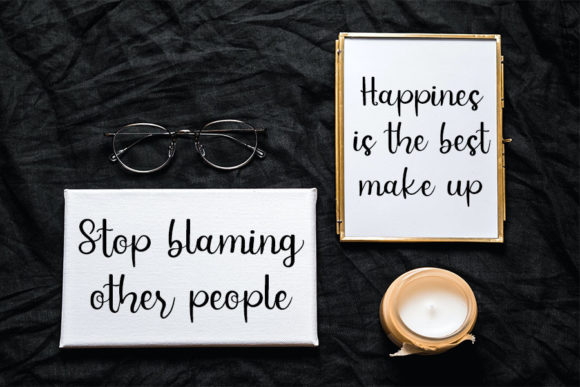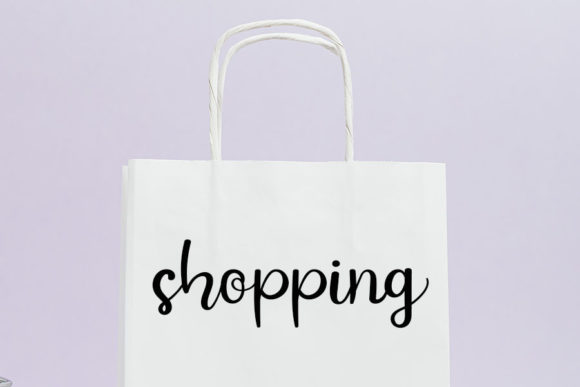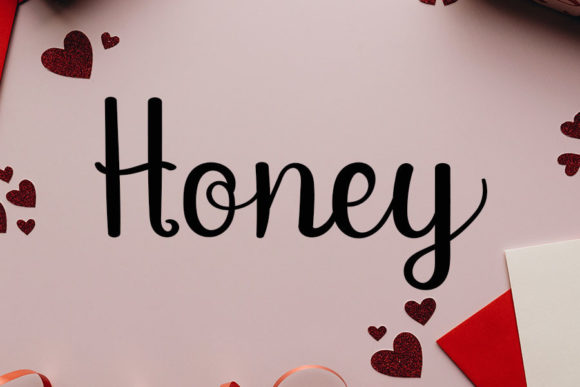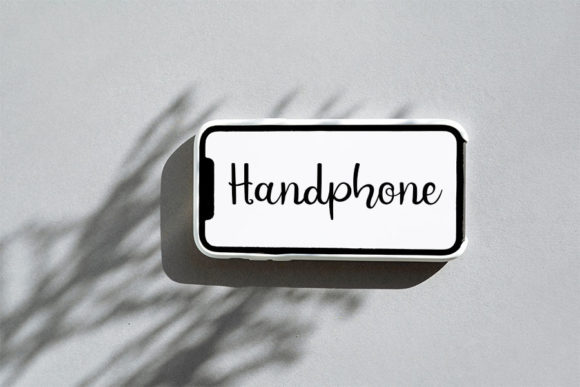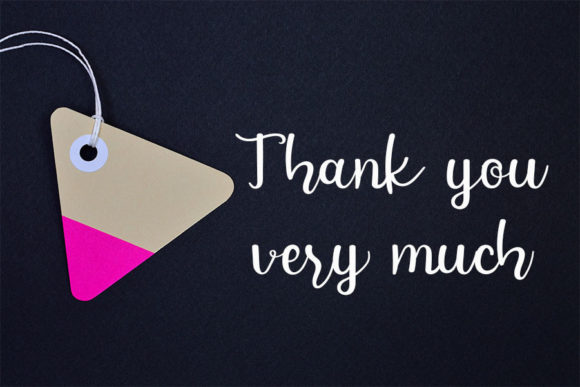
Introducing Happy Signature Font: The Perfect Choice for Romantic and Personalized Designs
Are you a designer or crafter looking for a font that can add a touch of romance and personality to your designs? Look no further than Happy Signature Font! This beautiful, slim, and delicate handwritten font is perfect for creating wedding invitations, cards, and other designs that require a special, personalized touch.
What Makes Happy Signature Font So Special?
Happy Signature Font is a unique and charming font that is sure to capture the hearts of anyone who sees it. Its dainty and joyful design makes it ideal for a variety of projects, from wedding invitations and cards to branding and packaging. The font’s slim and delicate lines give it a sophisticated and elegant feel, while its handwritten style adds a touch of warmth and personality.
Wedding invitations and cards are a great way to showcase the beauty of Happy Signature Font. The font’s romantic and elegant design makes it perfect for creating stunning wedding invitations that will set the tone for the big day. Whether you’re a wedding planner, designer, or bride-to-be, Happy Signature Font is a great choice for creating beautiful and memorable wedding stationery.
Adding a Personalized Touch to Your Designs
One of the best things about Happy Signature Font is its ability to add a personalized touch to your designs. The font’s handwritten style gives it a unique and personal feel, making it perfect for creating custom designs that reflect the personality and style of the recipient. Whether you’re creating a custom logo, branding materials, or packaging, Happy Signature Font is a great choice for adding a touch of personality and whimsy.
Why Designers and Crafters Love Happy Signature Font
Designers and crafters love Happy Signature Font for a variety of reasons. Here are just a few:
- Unique and eye-catching design: Happy Signature Font has a unique and eye-catching design that is sure to stand out in any design.
- Versatile: The font is versatile and can be used for a variety of projects, from wedding invitations and cards to branding and packaging.
- Easy to read: Despite its delicate lines, Happy Signature Font is easy to read and understand, making it perfect for creating designs that need to be both beautiful and functional.
- Customizable: The font can be customized to fit your specific design needs, making it perfect for creating unique and personalized designs.
How to Use Happy Signature Font in Your Designs
Using Happy Signature Font in your designs is easy! Here are a few tips to get you started:
- Pair it with other fonts: Happy Signature Font pairs well with other fonts, such as serif and sans-serif fonts. Experiment with different font combinations to find the perfect look for your design.
- Use it for headings and titles: The font’s delicate lines make it perfect for use as headings and titles. Use it to add a touch of elegance and sophistication to your designs.
- Add embellishments and graphics: Happy Signature Font looks great with embellishments and graphics, such as flowers, hearts, and other whimsical designs. Experiment with different graphics and embellishments to add a touch of personality to your designs.
Happy Signature Font is a beautiful and versatile font that is perfect for designers and crafters looking to add a touch of romance and personality to their designs. Its slim and delicate lines give it a sophisticated and elegant feel, while its handwritten style adds a touch of warmth and personality. Whether you’re creating wedding invitations, cards, or other designs, Happy Signature Font is a great choice for adding a personalized touch.